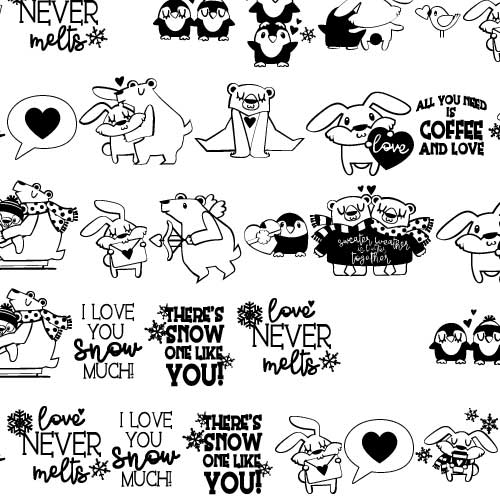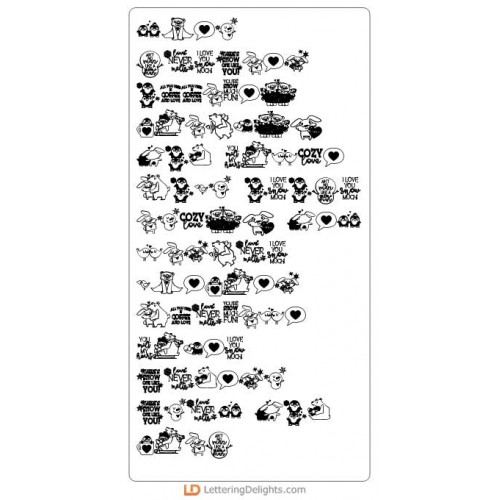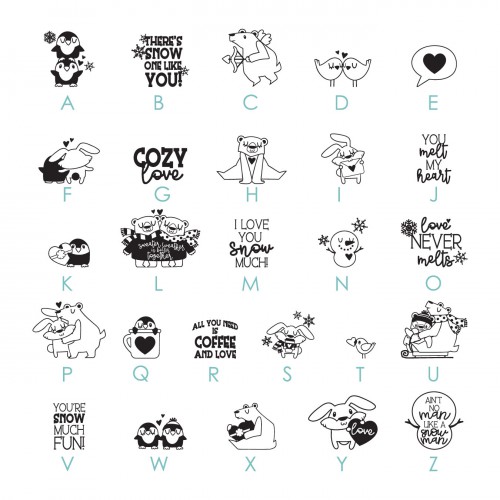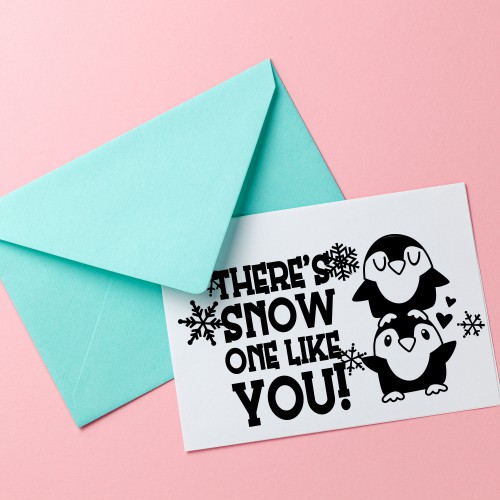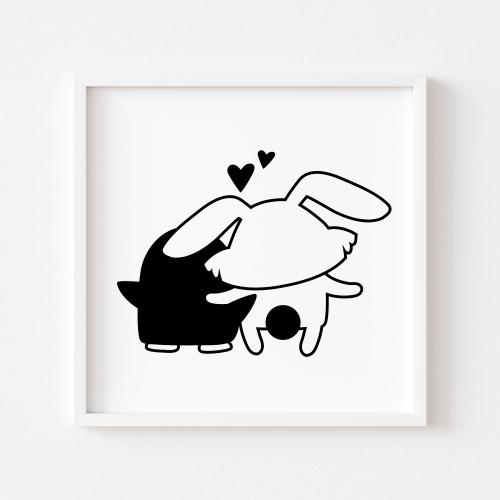
DB Cozy Cuties - Love - DB
This adorable doodlebat font features 26 Winter Animals ready for love. Perfect for cards, crafts, gifts, classrooms, planner stickers, scrapbook pages, decor and more!